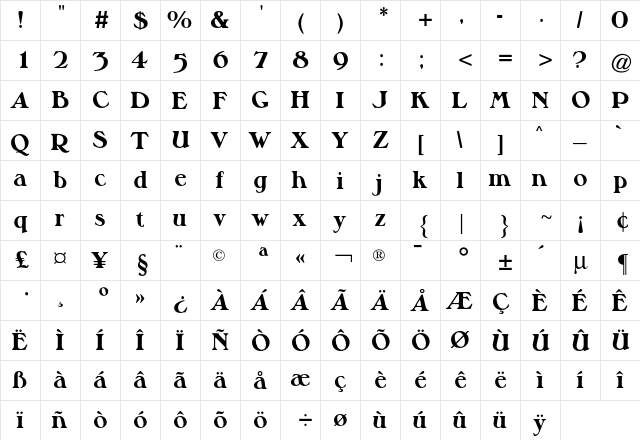
Musketeer CG ExtraBold Regular
| Foundry | Miles Inc |
Design Context for Musketeer CG ExtraBold Typeface
Musketeer CG ExtraBold is a composed and adaptable typeface that performs quietly and consistently across a wide range of design contexts. The heavy weight commands attention and anchors typographic hierarchies.